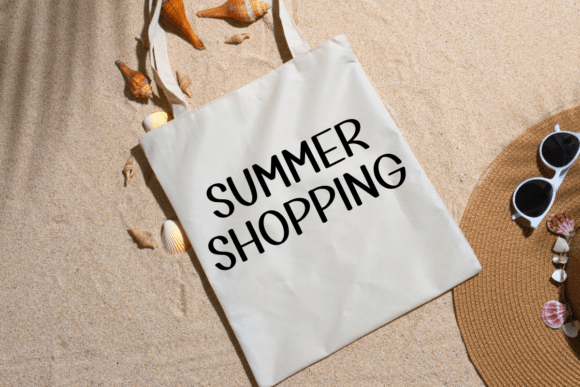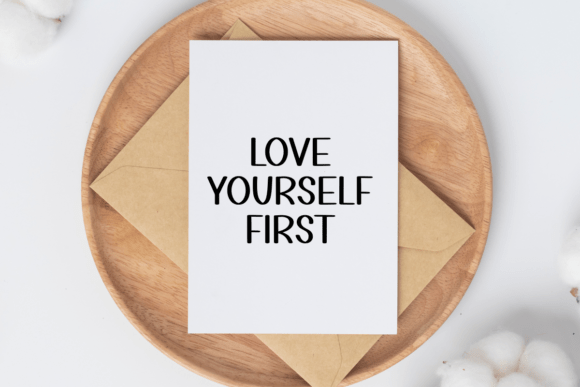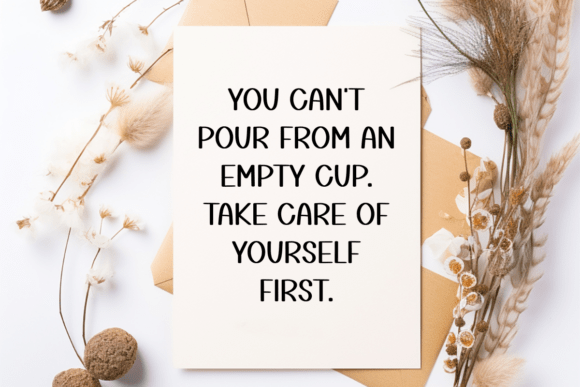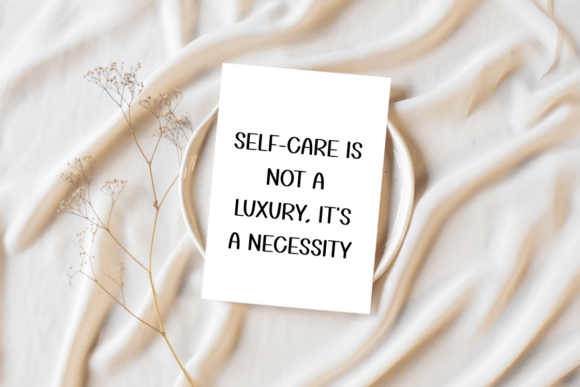
Dreaming Font: The Perfect Blend of Simplicity and Friendliness
In the world of typography, fonts play a crucial role in conveying the tone and personality of a brand or design. With numerous font options available, finding the perfect one that combines simplicity with a friendly and approachable vibe can be a daunting task. However, if you’re looking for a font that embodies modern handwritten typography with a polished finish, look no further than the Dreaming Font.
What is Dreaming Font?
Dreaming Font is a casual and neat display font that has been carefully crafted to capture the essence of modern handwritten typography. Featuring clean lines, balanced letterforms, and subtle rounded edges, this font exudes a warm and inviting touch that’s perfect for a wide range of design applications.
Key Characteristics of Dreaming Font
So, what makes Dreaming Font stand out from the rest? Here are some of its key characteristics:
• Clean Lines: Dreaming Font boasts clean lines that give it a crisp and modern look. This makes it perfect for designs that require a touch of sophistication and elegance.
• Balanced Letterforms: The font features balanced letterforms that ensure clarity and readability, even at smaller font sizes.
• Subtle Rounded Edges: The subtle rounded edges of Dreaming Font give it a friendly and approachable vibe that’s perfect for brands that want to convey a sense of warmth and approachability.
Use Cases for Dreaming Font
Dreaming Font is an incredibly versatile font that can be used in a wide range of design applications, including:
• Branding: Use Dreaming Font to create a unique and memorable brand identity that reflects your company’s values and personality.
• Headlines: The font’s clean lines and balanced letterforms make it perfect for headlines that require a touch of sophistication and elegance.
• Packaging: Add a warm and inviting touch to your packaging designs with Dreaming Font.
• Digital Content: Use Dreaming Font to create engaging and readable digital content, such as blog posts, social media graphics, and more.
Benefits of Using Dreaming Font
So, why should you choose Dreaming Font for your next design project? Here are some of the benefits of using this amazing font:
• Clarity: Dreaming Font delivers clarity and readability, even at smaller font sizes.
• Charm: The font’s subtle rounded edges and balanced letterforms give it a charming and inviting vibe that’s perfect for brands that want to convey a sense of warmth and approachability.
• Versatility: Dreaming Font is an incredibly versatile font that can be used in a wide range of design applications.
Tips for Using Dreaming Font Effectively
Here are some tips for using Dreaming Font effectively in your designs:
• Pair it with other fonts: Experiment with pairing Dreaming Font with other fonts to create a unique and visually appealing typography.
• Use it consistently: Use Dreaming Font consistently across all your design elements to create a cohesive and recognizable brand identity.
• Experiment with font sizes: Don’t be afraid to experiment with different font sizes to create visual hierarchy and emphasis in your designs.
In conclusion, Dreaming Font is an amazing font that combines simplicity with a friendly and approachable vibe. With its clean lines, balanced letterforms, and subtle rounded edges, it’s perfect for a wide range of design applications, from branding and headlines to packaging and digital content. Whether you’re a designer or crafter, Dreaming Font is definitely worth checking out.